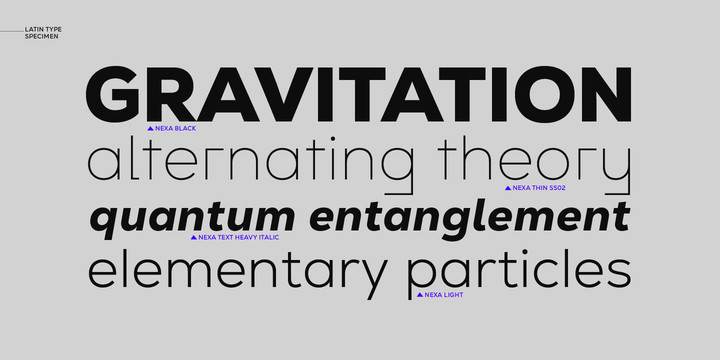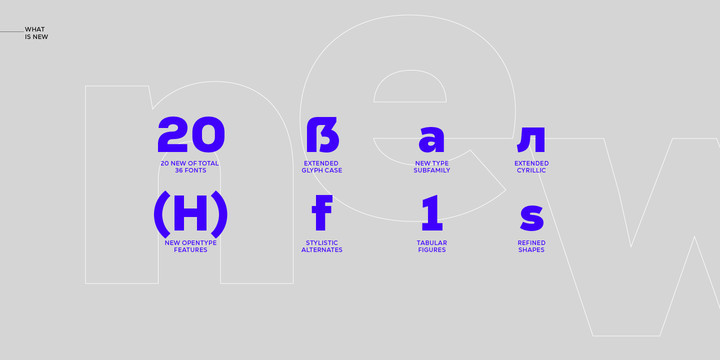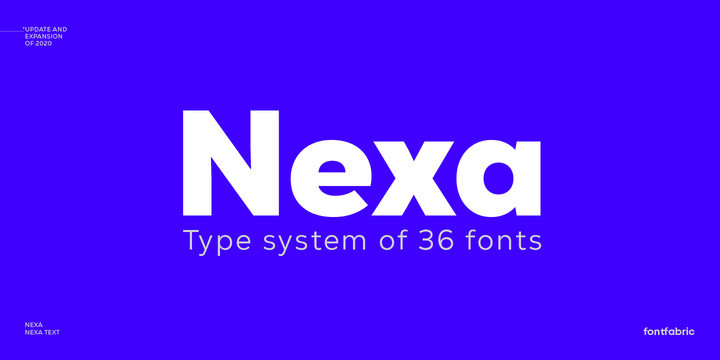
Nexa Font
Even the most recognizable typefaces of our time, such as Nexa, should be updated sometimes. We proudly present you with the latest upgraded version of the notorious geometric sans serif.
The completely refined family design comes with an addition of one more weight—Extra Light—and its matching italic, alongside an entirely new subfamily—Nexa Text, optimized for longer text, and even a futurist stylistic set of Nexa for an alternative display look. The outcome is altogether 9 weights and 36 fonts!